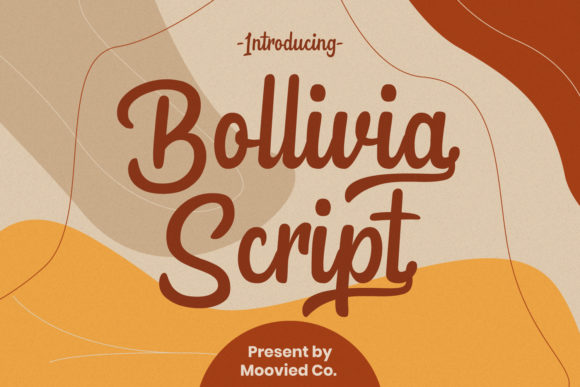
Welcome to the world of Bollivia Font, the ultimate expression of quirky creativity! Immerse yourself in its playful charm, where each stroke is a dance of imagination. This captivating script font exudes a touch of whimsy, injecting an irresistible dose of personality into your designs.
Imagine your logos bursting with character, your branding embracing an unforgettable flair, your social media presence radiating a captivating allure. Bollivia Font empowers you to craft designs that speak volumes without uttering a single word.
Indulge in the versatility of Bollivia Font, effortlessly adaptable to a myriad of creative endeavors. Unleash its magic in crafting enchanting posters that ignite the imagination, captivating invitations that ignite anticipation, and enchanting greeting cards that warm the heart. Its versatility knows no bounds, making it the perfect companion for any project that yearns for a touch of handwritten grace.
Step into the world of Bollivia Font and discover a font that transcends mere aesthetics. It's a font that embodies the spirit of creativity, inviting you to dance upon the canvas of your imagination. Download Bollivia Font today and let your designs blossom into a symphony of style and allure.